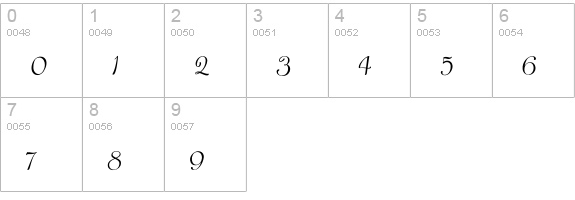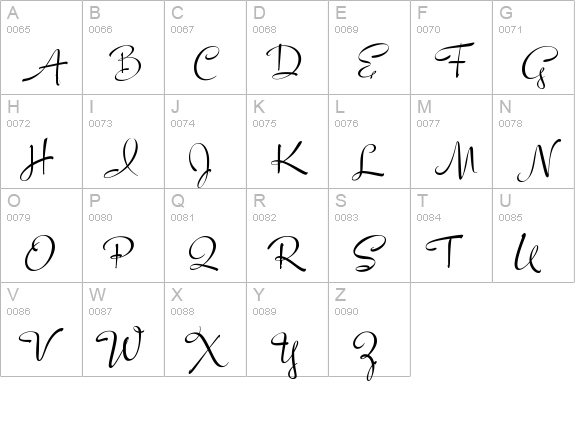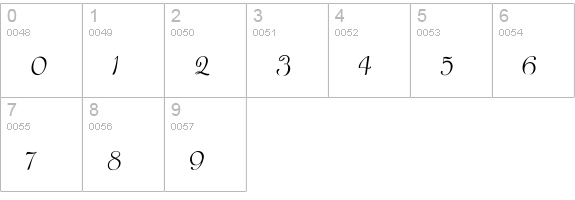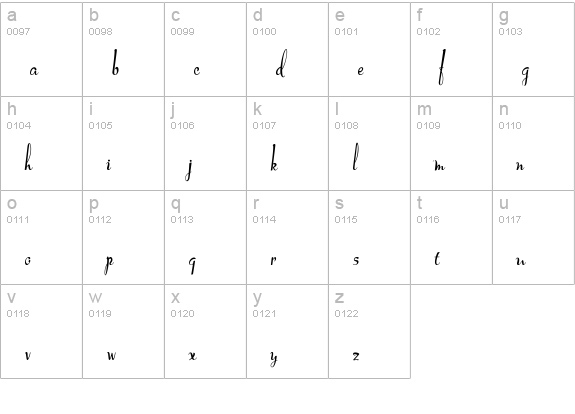
Lucy Script Font Details
Lucy Script is a stunningly beautiful handwritten font that exudes elegance and charm. With its delicate curves and graceful strokes, this font is perfect for adding a touch of sophistication to any project. Whether you're designing wedding invitations, branding materials, or creating stunning typography art, Lucy Script will elevate your work to new heights. One of the best things about Lucy Script is that it is free! That's right, you can download this amazing font for absolutely no cost at FontsMarket.com. This means that you can use it in both personal and commercial projects without any restrictions. It's a fantastic opportunity to enhance your designs without breaking the bank. The versatility of Lucy Script is truly remarkable. It effortlessly blends classic and contemporary elements, making it suitable for a wide range of design styles. Its legibility and readability are top-notch, ensuring that your message is conveyed with clarity and style. The attention to detail in Lucy Script is truly exceptional. Each letter is meticulously crafted, resulting in a font that is not only visually appealing but also incredibly well-balanced. The flowing connections between letters create a seamless and harmonious look, adding a touch of flair to your designs. Whether you're a professional designer or someone who simply enjoys playing with typography, Lucy Script is a must-have in your font collection. Its timeless beauty and versatility make it a go-to choice for any project. And with the fact that it is freely available to download at FontsMarket.com, there's no reason not to add this amazing font to your arsenal. So go ahead, unleash your creativity and let Lucy Script elevate your designs to a whole new level.